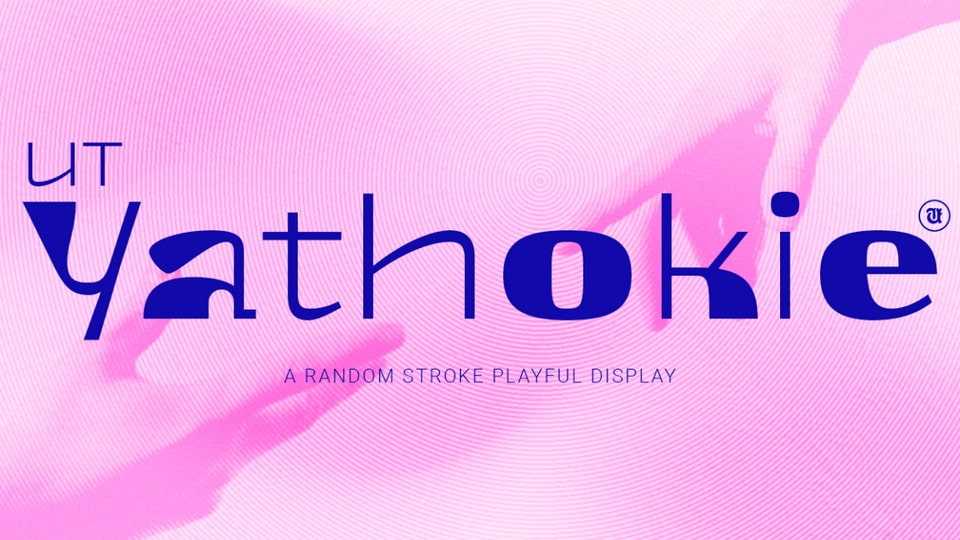
Download UT Yathokie font, a display typeface that doesn’t follow rules, because rules are boring. It’s a quirky, unpredictable display font that brings a jolt of personality to whatever it touches.
Designer: Universitype Foundry